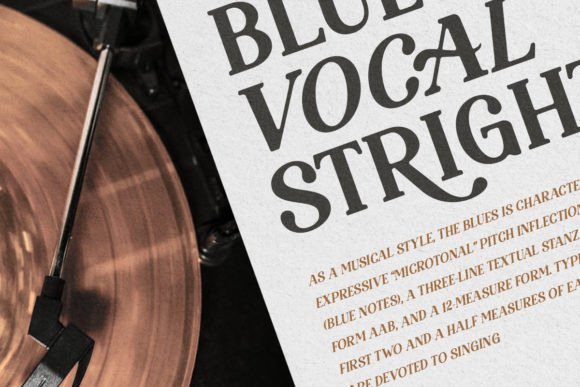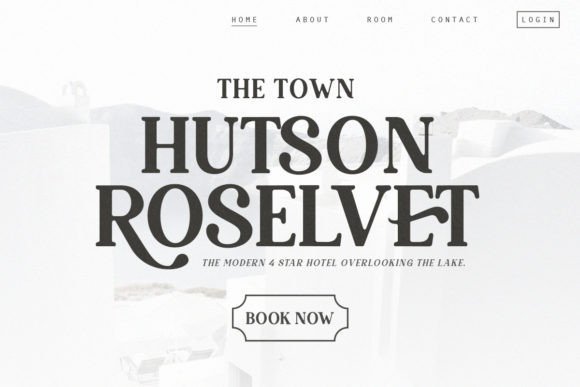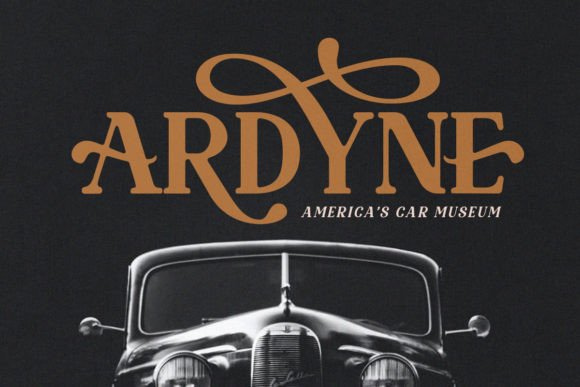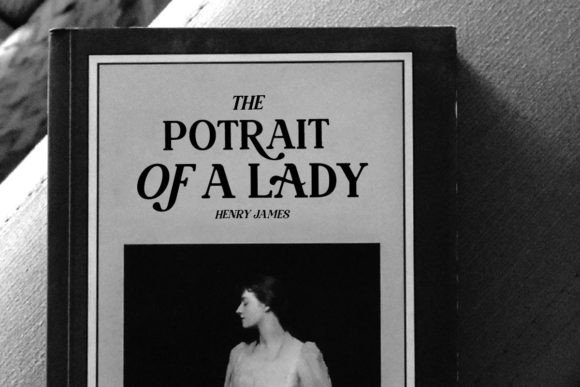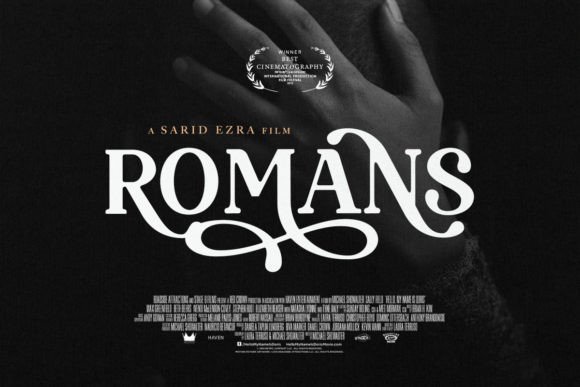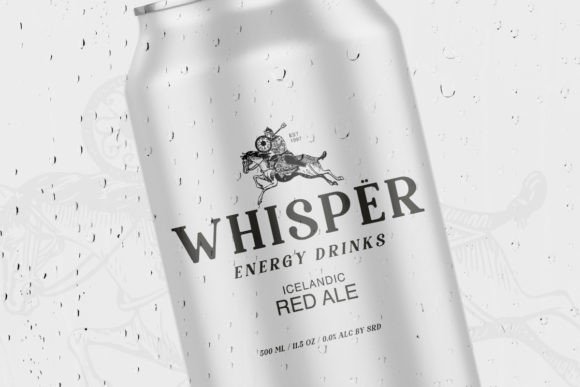
Introducing Heaven Scape Font: Elevate Your Designs with Elegance
In the world of typography, a good font can make all the difference in creating visually stunning designs. If you’re a designer, craft, or simply someone who appreciates beautiful typography, you’re in luck. Heaven Scape Font is a classy, elegant, and stylish all-caps serif font that is sure to take your presentations, logos, and designs to the next level.
What Makes Heaven Scape Font Special?
Heaven Scape Font boasts a bold and rounded shape that is both eye-catching and sophisticated. With a variety of alternates for each character, this font offers endless possibilities for creative expression. Whether you’re designing a logo, creating a poster, or crafting a wedding invitation, Heaven Scape Font is the perfect choice.
Key Features of Heaven Scape Font
- Classy and Elegant Design: Heaven Scape Font features a sophisticated all-caps serif design that exudes elegance and refinement.
- Variety of Alternates: Each character comes with multiple alternate options, allowing you to experiment with different styles and combinations.
- Bold and Rounded Shape: The font’s bold and rounded shape makes it perfect for creating eye-catching designs that stand out.
- Versatile Uses: Heaven Scape Font can be used for a wide range of applications, including magazines, branding, posters, and wedding invitations.
Why Choose Heaven Scape Font?
With so many fonts available, why choose Heaven Scape Font? Here are just a few reasons:
- Unique and Memorable: Heaven Scape Font’s distinctive design ensures that your designs will be remembered and noticed.
- Easy to Read: Despite its bold and elegant design, Heaven Scape Font remains easy to read, making it perfect for body text and headlines.
- Customizable: With multiple alternates for each character, you can customize Heaven Scape Font to fit your design needs.
How to Use Heaven Scape Font
Heaven Scape Font is incredibly versatile and can be used in a variety of design applications. Here are a few ideas to get you started:
- Logos and Branding: Use Heaven Scape Font to create a bold and memorable logo that sets your brand apart.
- Posters and Flyers: Add a touch of elegance to your posters and flyers with Heaven Scape Font’s sophisticated design.
- Wedding Invitations: Make your wedding invitations truly special with Heaven Scape Font’s beautiful and refined design.
- Magazines and Publications: Use Heaven Scape Font to add a touch of class and sophistication to your magazine or publication.
Heaven Scape Font is a truly exceptional font that offers a unique combination of elegance, sophistication, and versatility. Whether you’re a designer, craft, or simply someone who appreciates beautiful typography, Heaven Scape Font is sure to become a favorite. With its bold and rounded shape, variety of alternates, and ease of use, Heaven Scape Font is the perfect choice for any design project.